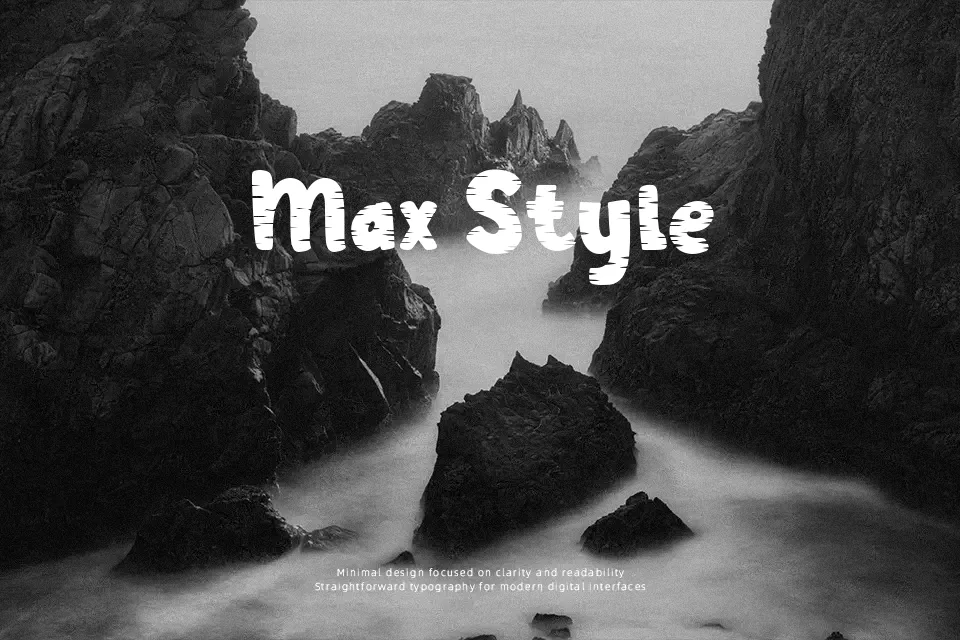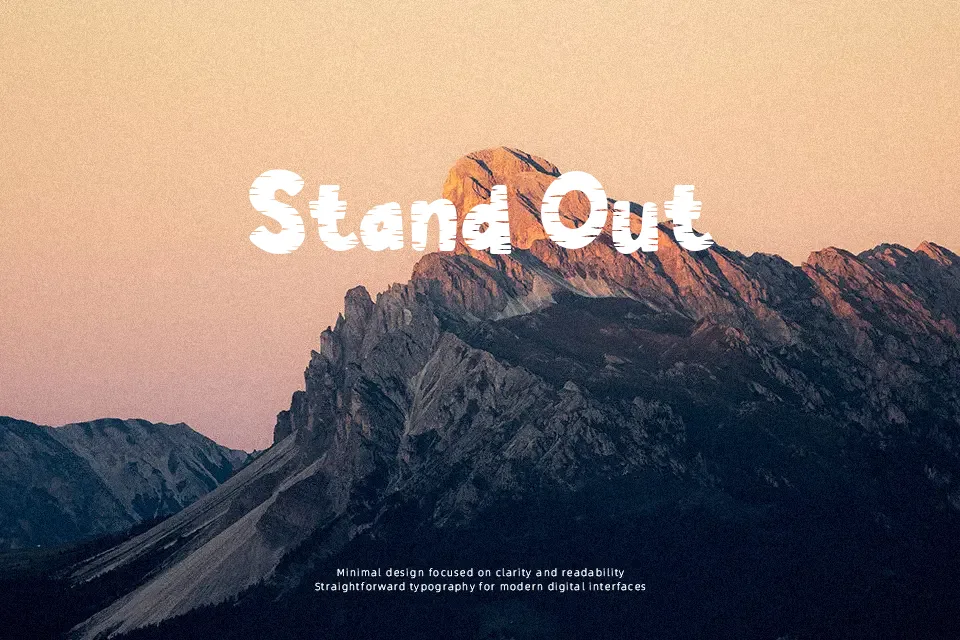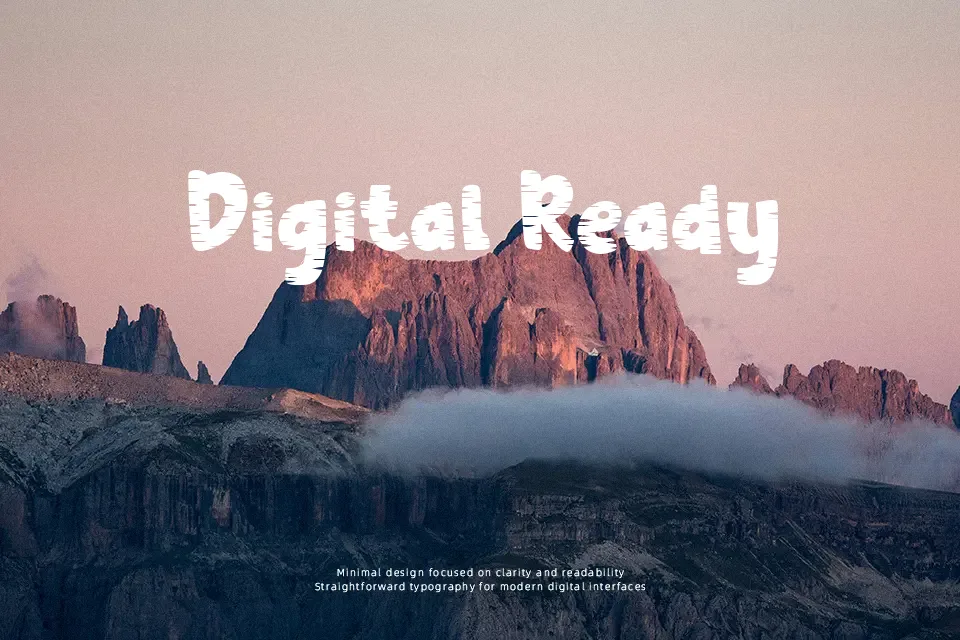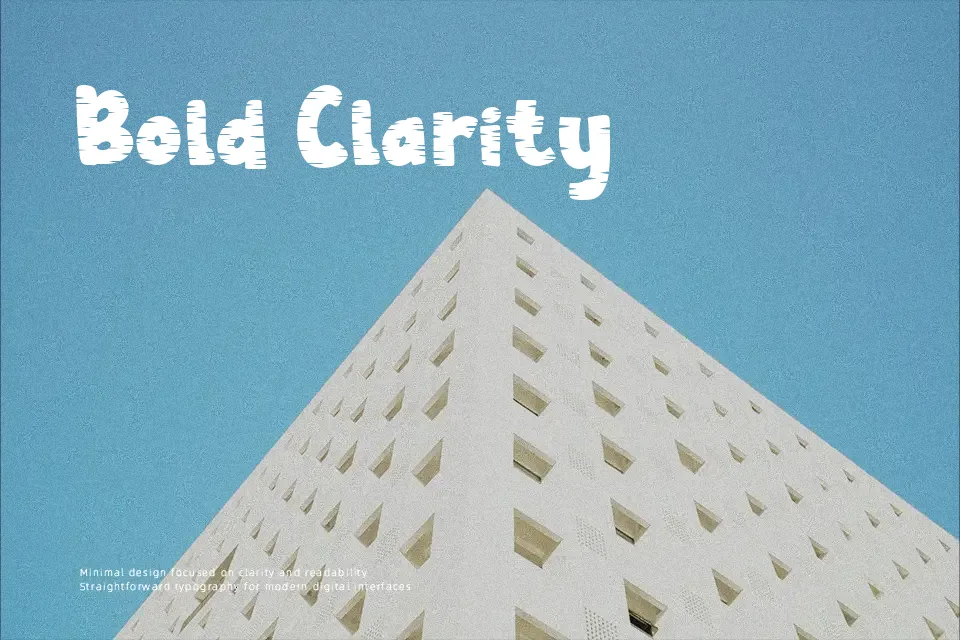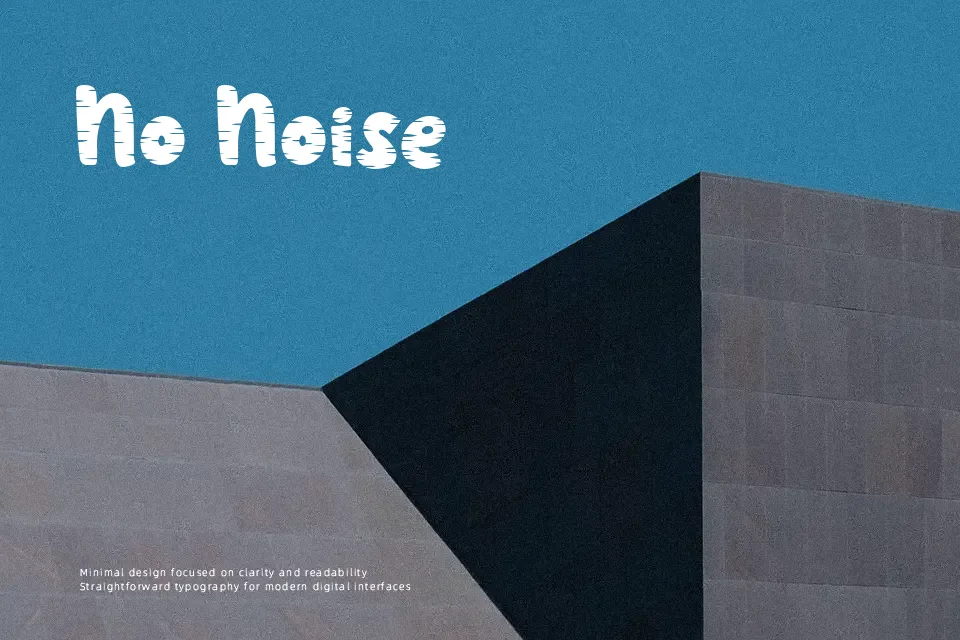
Tabby Display Font
Tabby Display Font uses thick, rounded forms with soft curves, broad proportions, and an intentionally playful display presence. The strokes appear largely even in weight, while the open counters and generous shapes help individual letters remain recognizable in large words. Its spacing gives short headlines a relaxed, bouncy rhythm rather than a dense editorial texture. The typeface works most convincingly on posters, product labels, and kid-focused graphics where the lettering can be seen at medium to large sizes. Decorative shaping makes it less dependable for small captions or extended passages, but the broad construction keeps large display text clear.